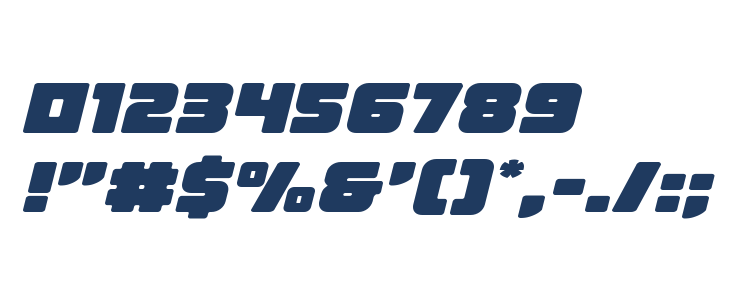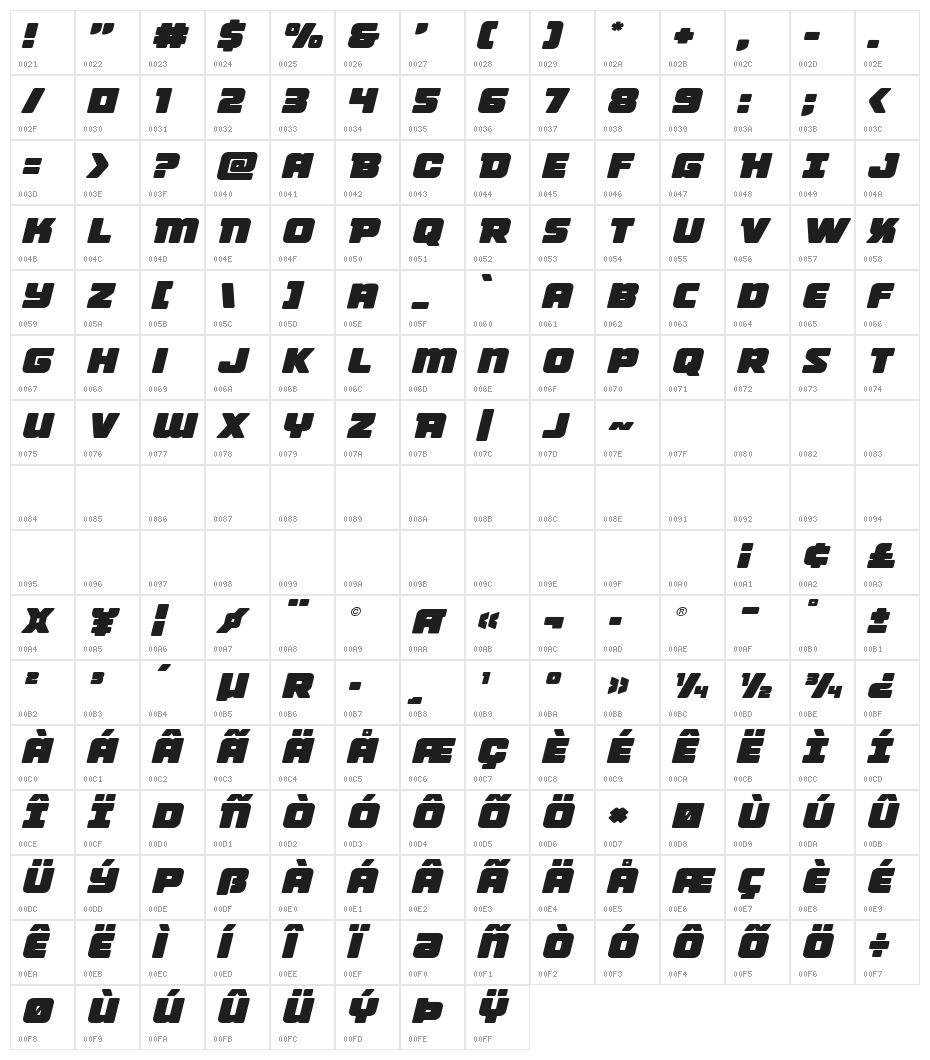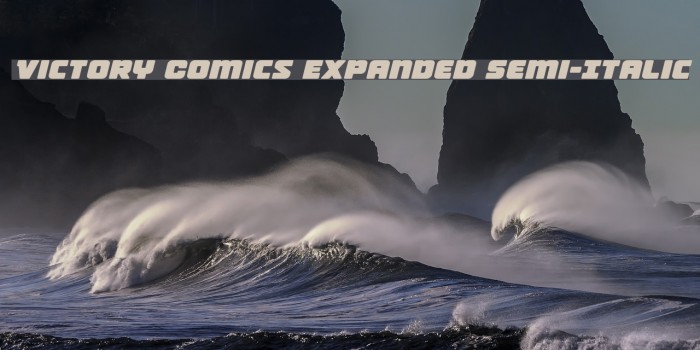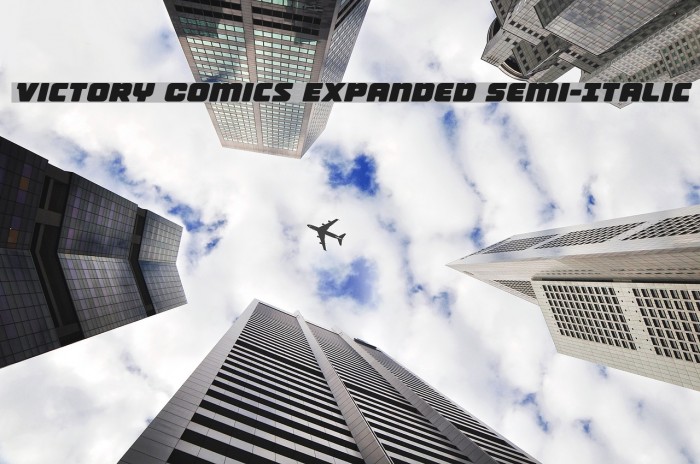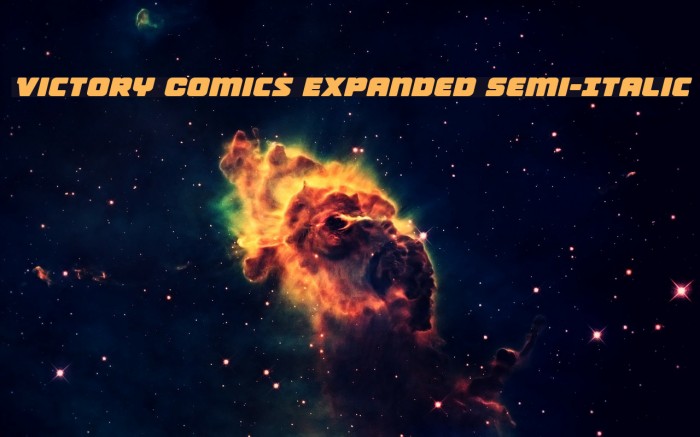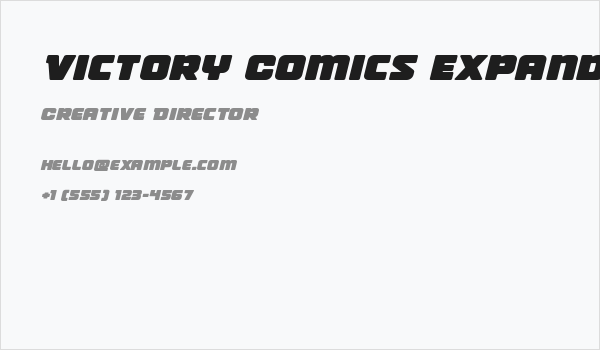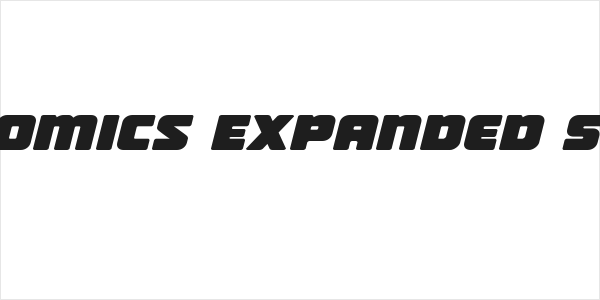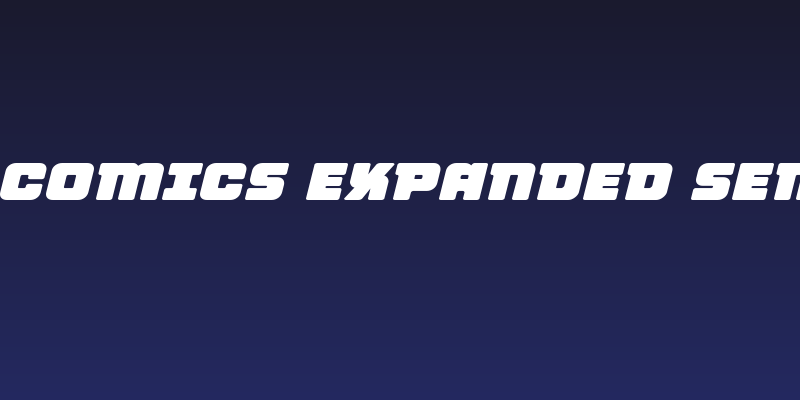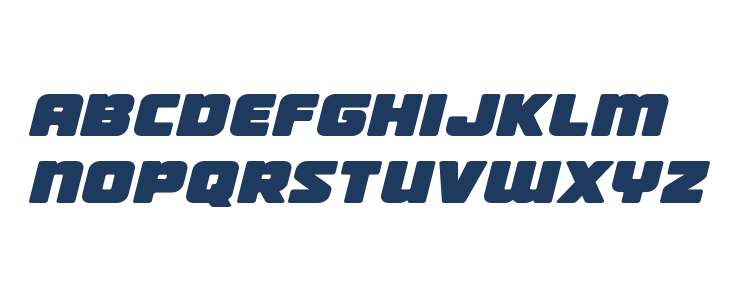
Victory Comics Expanded Semi-Italic Font
Victory Comics Expanded Semi-Italic Description
This font features a bold and dynamic style with an expanded and semi-italicized form. The characters are robust and have a strong presence, making them ideal for attention-grabbing designs. The strokes are thick and consistent, providing a solid and impactful look. The slight slant adds a sense of motion and energy, enhancing its suitability for creative and energetic projects. The font maintains a uniform weight throughout, ensuring readability while delivering a powerful visual statement. Its expanded width allows for a more open and spacious appearance, making it suitable for various display purposes.
| Proposed Projects | Ideal for comic book titles, posters, video game graphics, and branding that requires a bold and energetic look. |